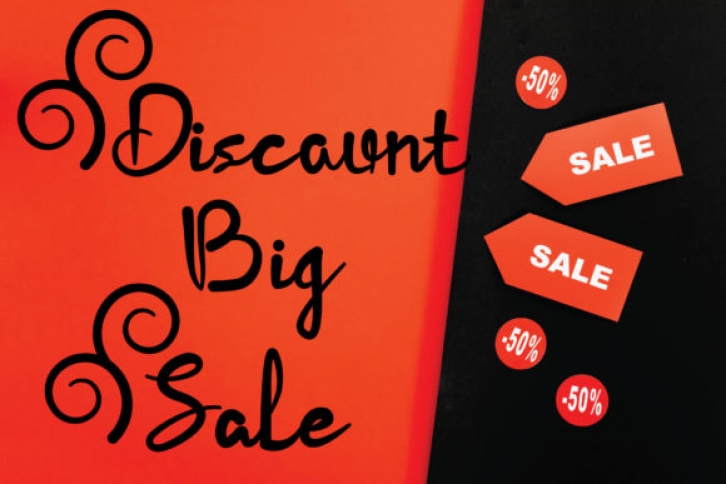
Discount Big Sale is a beautiful retro styled handwritten font. It looks stunning on wedding invitations, thank you cards, quotes, greeting cards, logos, business cards and every other design which needs a handwritten touch.